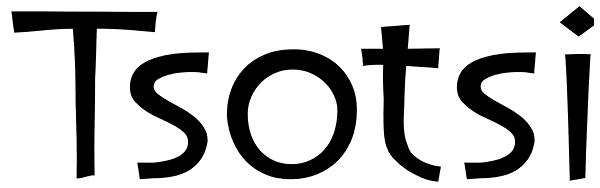
Tsotsi
Tsotsi, a recent addition to the Scholtz Fonts range, is highly legible, strong, African and contemporary in design. It is a sans serif font, however, the gently splayed terminals to the strokes subtly hint at a serif. It has been designed to be...